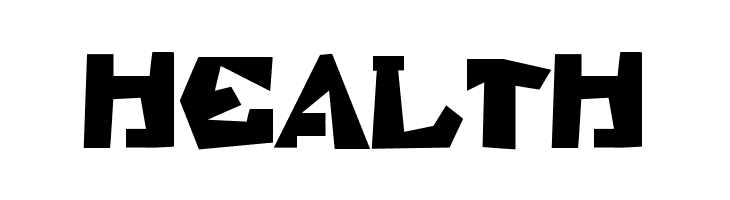
Claudiana Font
- Font: Claudiana
( Fonts by Fabrika De Typos - Marcio Hirosse - fabrikadetypos.blogspot.com )
A bold, textured font with a playful, vintage feel.